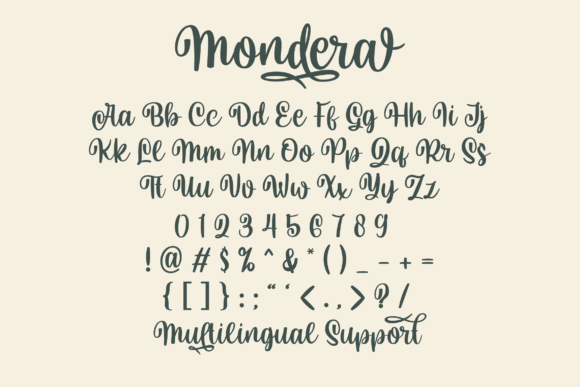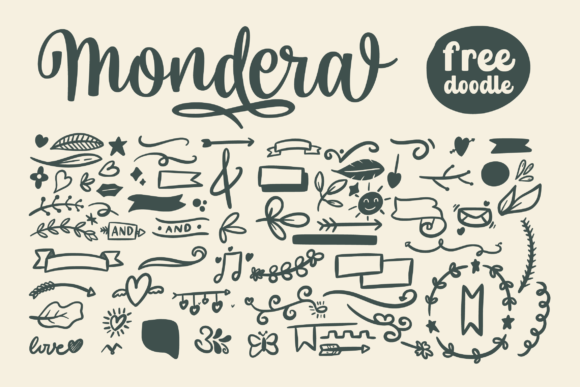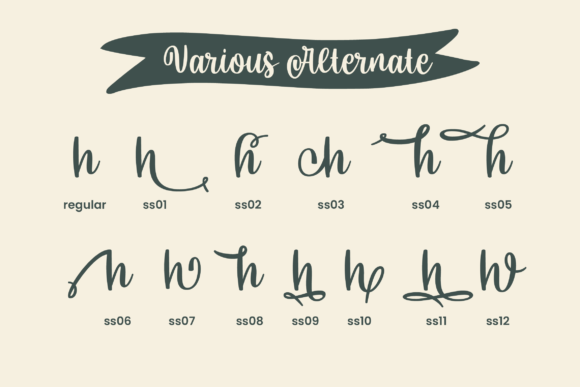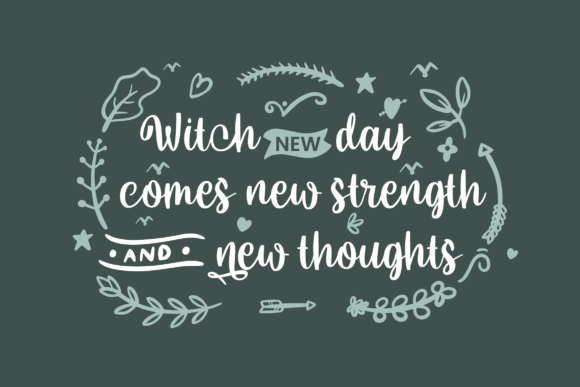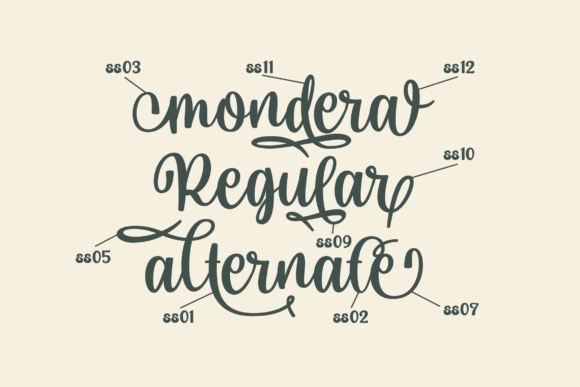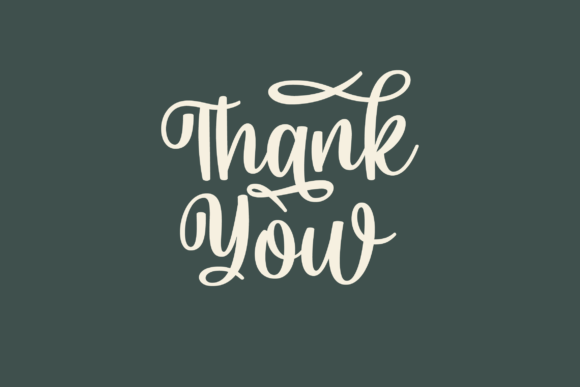
Mondera Font
About Mondera Font
Mondera is a beautiful and romantic handwritten font that adds a touch of elegance to various design projects. This font is particularly striking on wedding invitations, thank you cards, quotes, greeting cards, logos, business cards, and any other design that benefits from a handwritten touch. Notably, Mondera is PUA encoded, ensuring convenient access to all its glyphs and swashes for seamless customization.
The beauty of Mondera lies in its romantic handwritten style, which brings a sense of sophistication and charm to your text. Its versatility makes it an ideal choice for projects where a romantic and personalized aesthetic is desired, such as in wedding-related materials or branding.
Whether you’re working on a heartfelt quote, designing a logo, or creating business cards, Mondera stands out as a font that enhances the visual appeal of your designs. The PUA encoding feature provides easy access to a variety of glyphs and swashes, allowing designers to customize their text and add unique touches to their compositions.
In summary, Mondera is more than just a font; it’s a beautiful and romantic handwritten typeface that elevates your designs. Let it be the key element that brings an elegant and personalized touch to your wedding invitations, thank you cards, and various other creative endeavors, making each piece a stunning reflection of romance and sophistication.